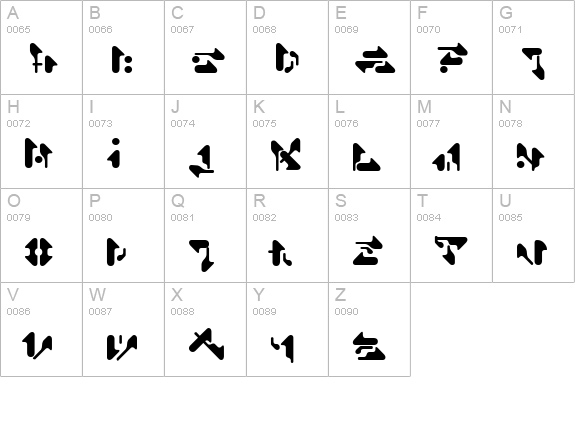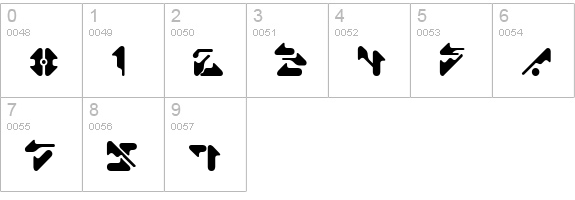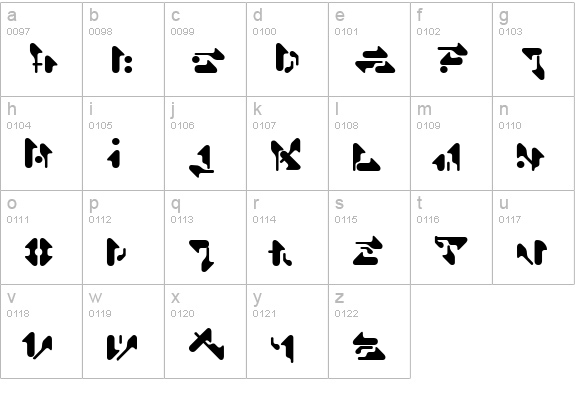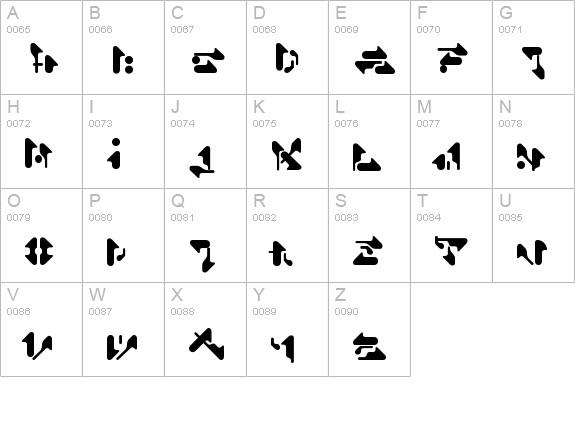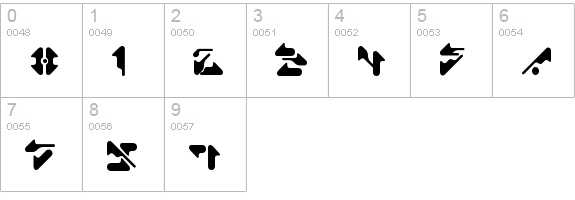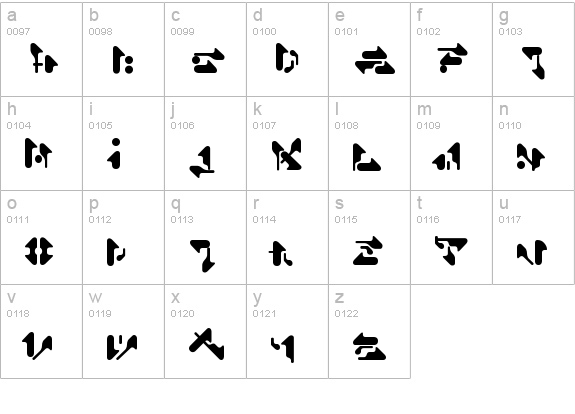
Shamen Remix Font Details
Introducing the mesmerizing Shamen Remix font, an artistic and captivating typeface that will elevate any design project to new heights. With its bold and intricate letterforms, this font exudes a sense of power and mystique, making it perfect for a wide range of creative endeavors. Whether you're working on a logo, branding materials, posters, or even a website, Shamen Remix will effortlessly inject an aura of sophistication and uniqueness into your designs. Its smooth curves and sharp edges create a harmonious balance, while its distinctive character adds a touch of intrigue and wonder. But the best part? Shamen Remix is available completely free to download at FontsMarket.com. Yes, you read that right – this stunning font can be yours without spending a dime. Now you can enhance your projects with a premium-quality typeface without breaking the bank. With its wide range of glyphs and extensive language support, Shamen Remix ensures that your message will be effectively conveyed to audiences around the world. Its versatility allows for seamless integration into various design styles, from modern and minimalist to bold and experimental. So why wait? Unleash your creativity and set your designs apart with the captivating allure of Shamen Remix. Download it for free at FontsMarket.com and embark on an unforgettable typographic journey. Embrace the magic of this remarkable font and watch as your designs come to life with a renewed sense of enchantment and beauty.